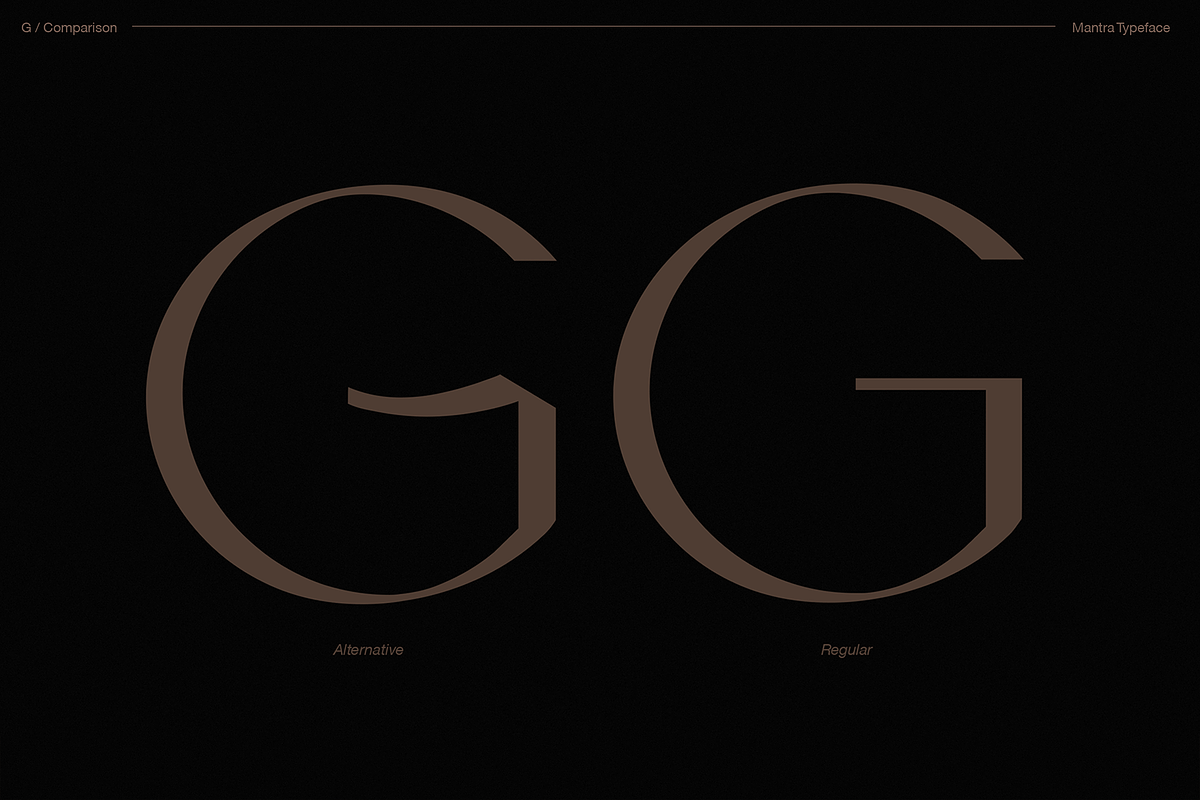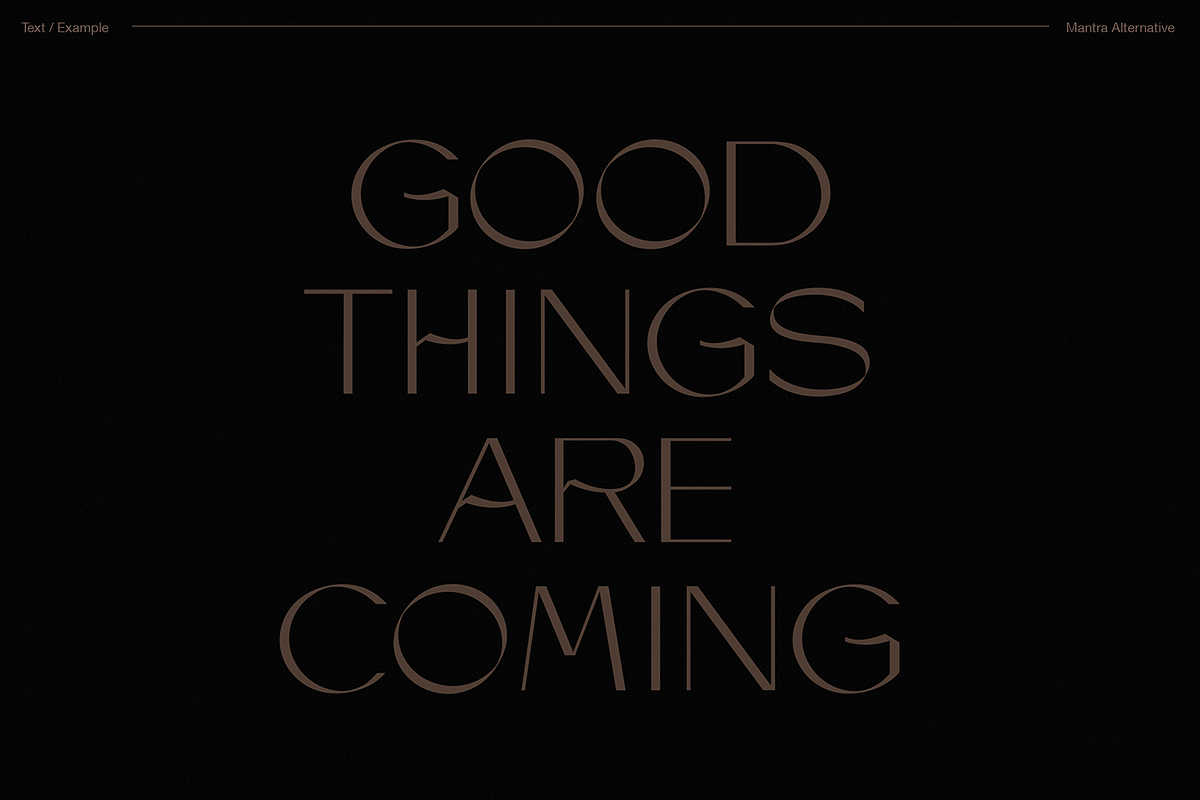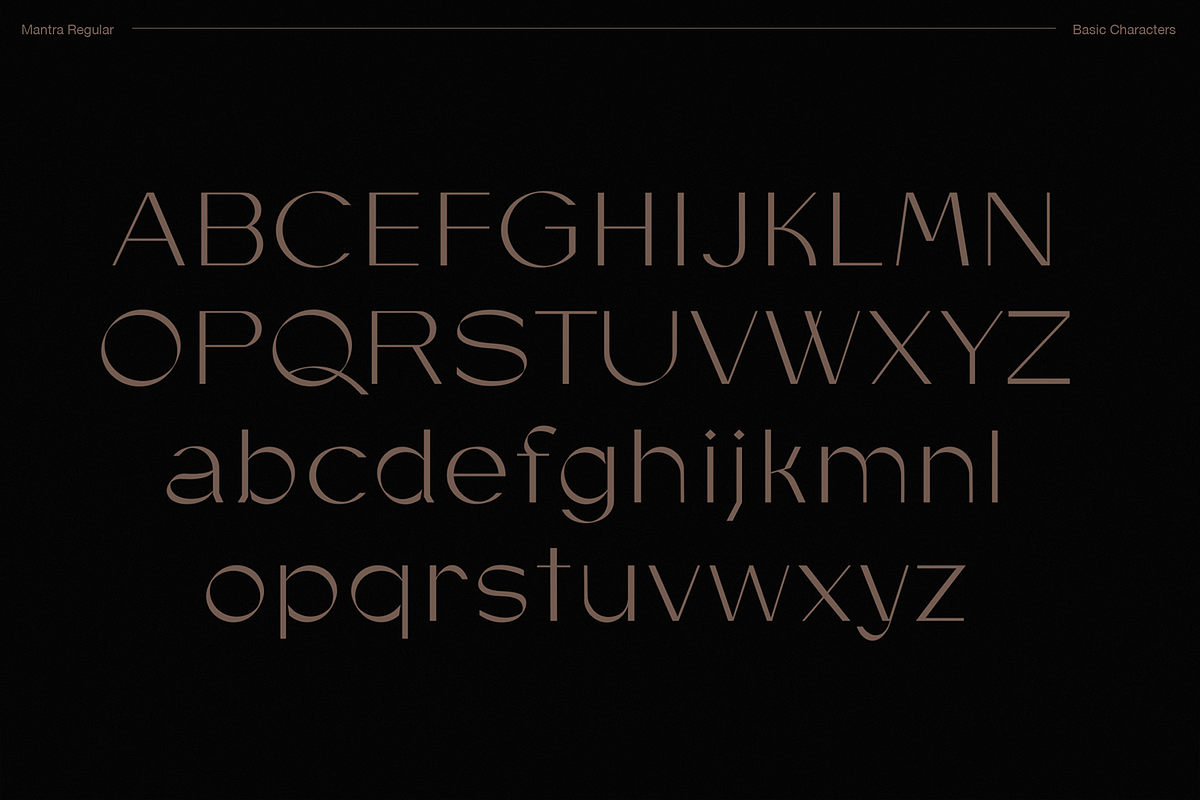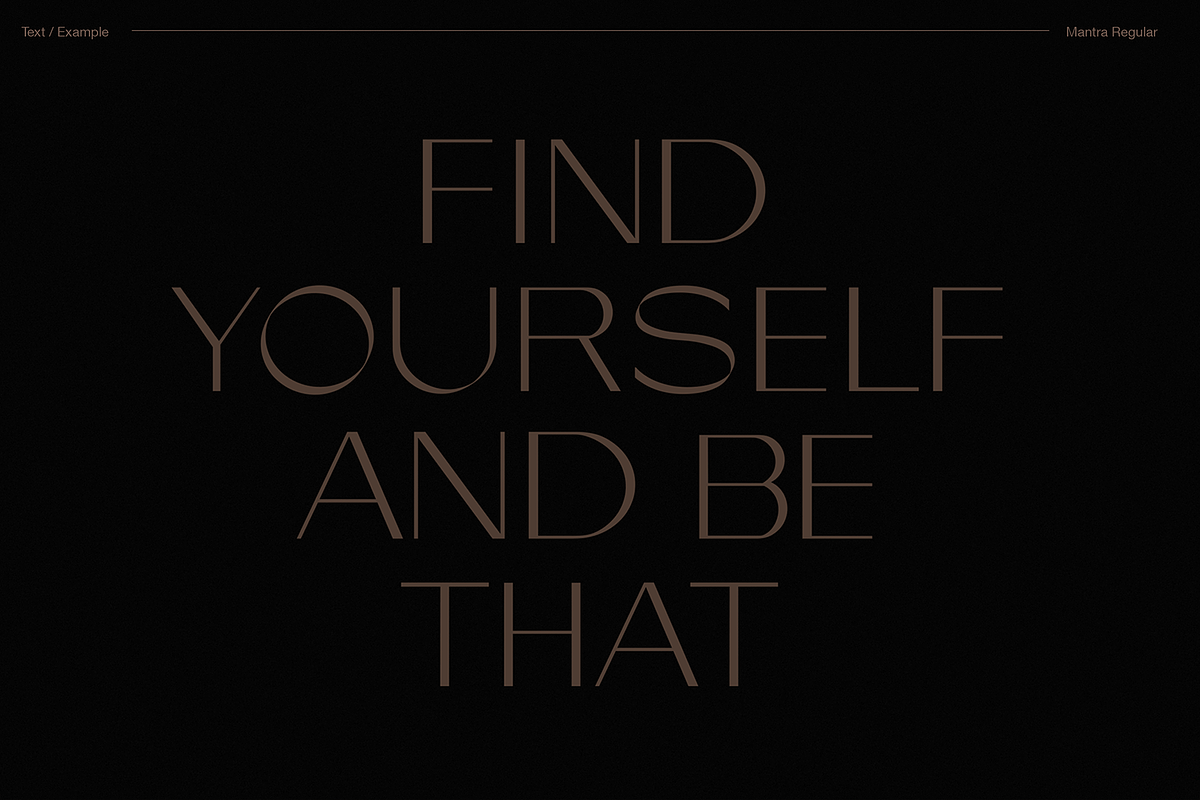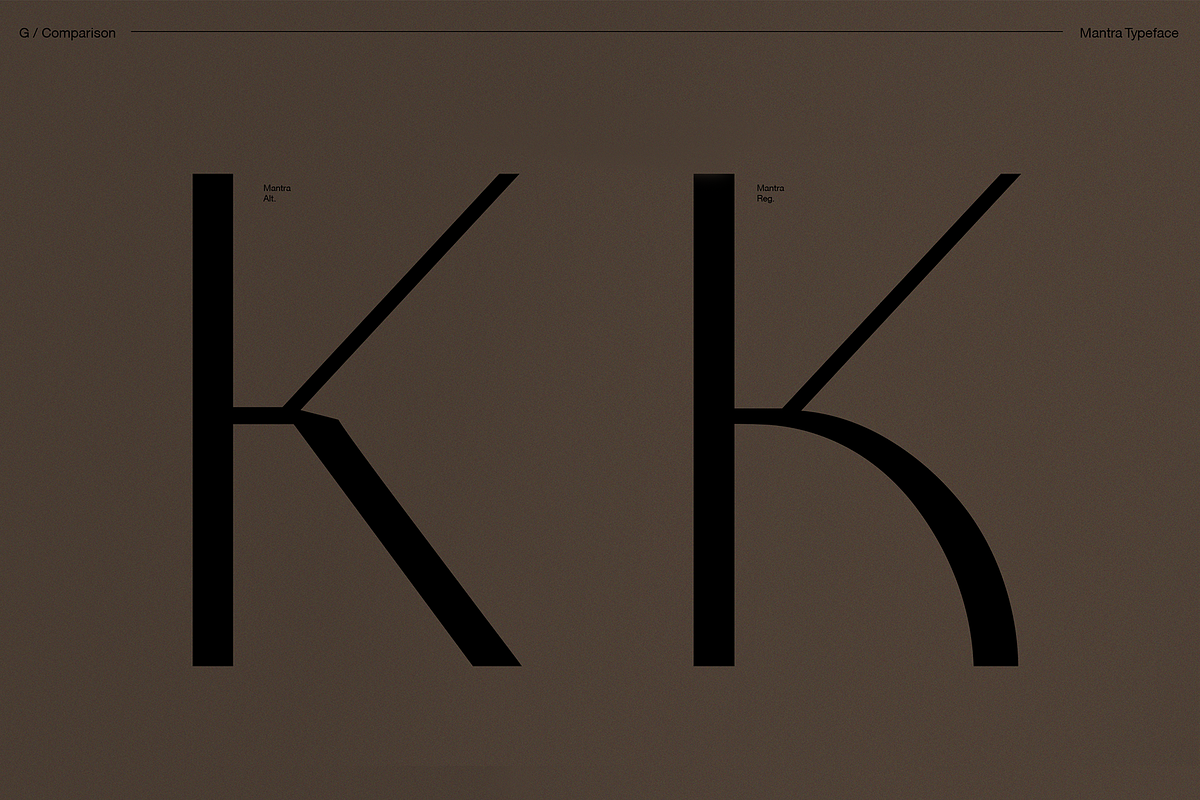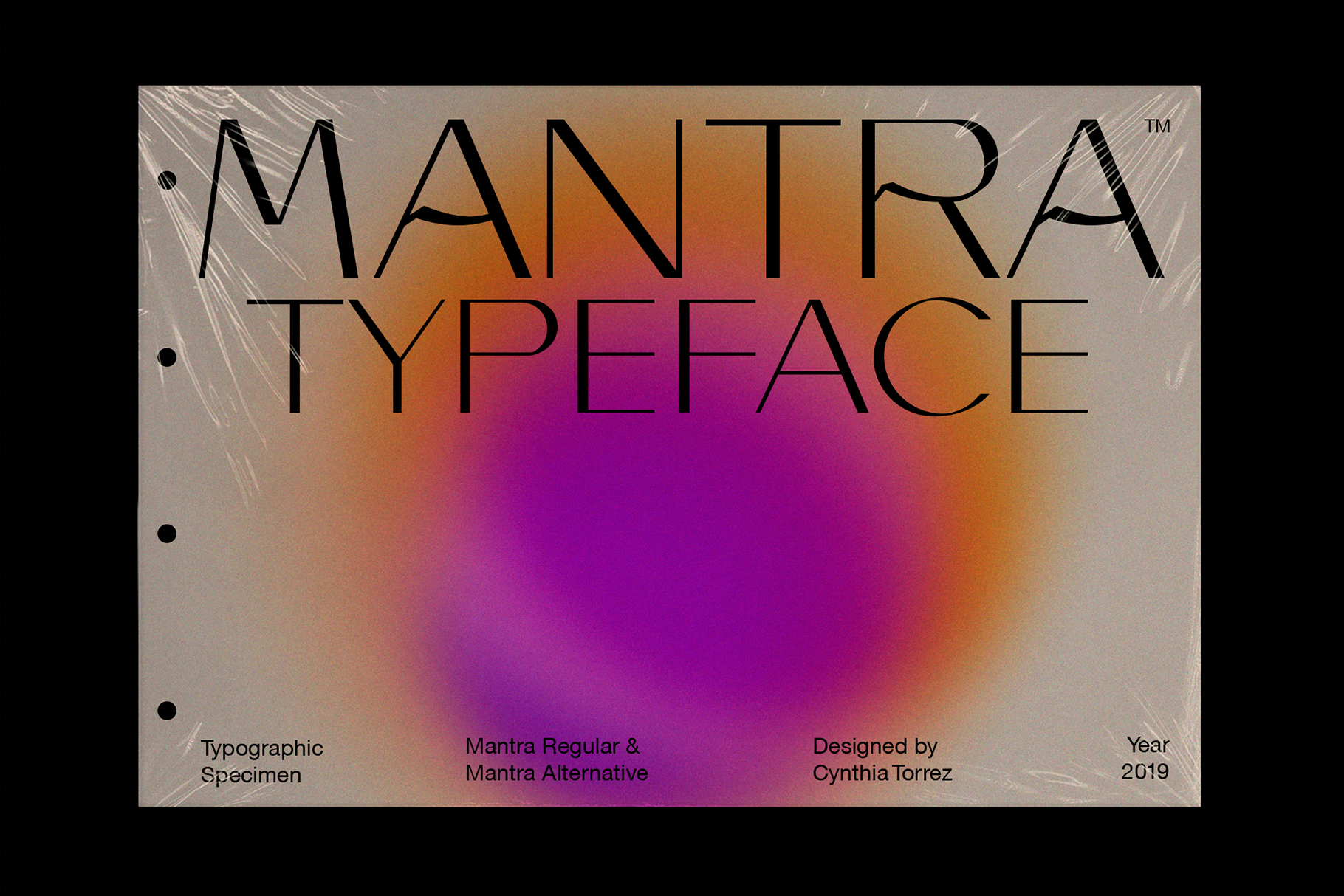
Mantra Typeface #mantratype
Mantra Typeface
Mantra is a sans-serif and experimental typeface. This ZIP file includes two variants of Mantra: Mantra Regular and Mantra Alternative.